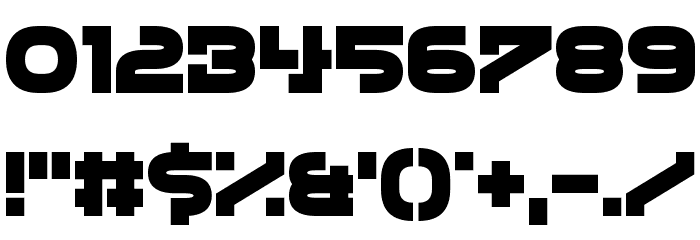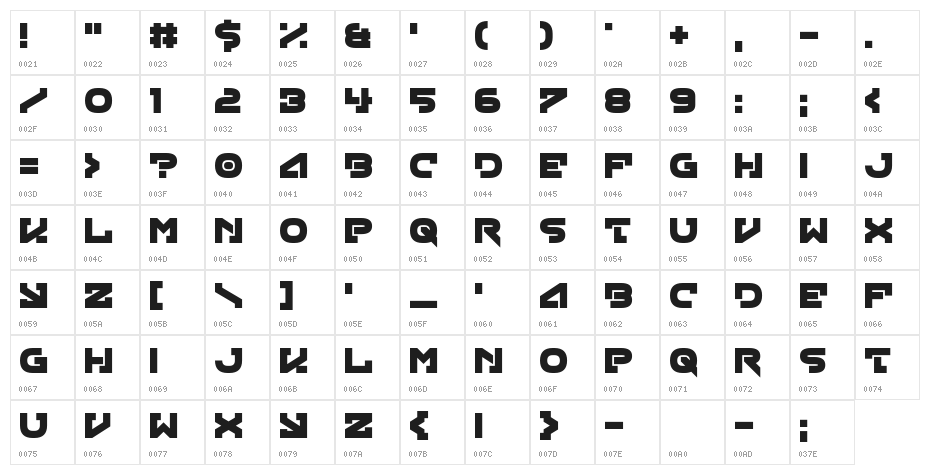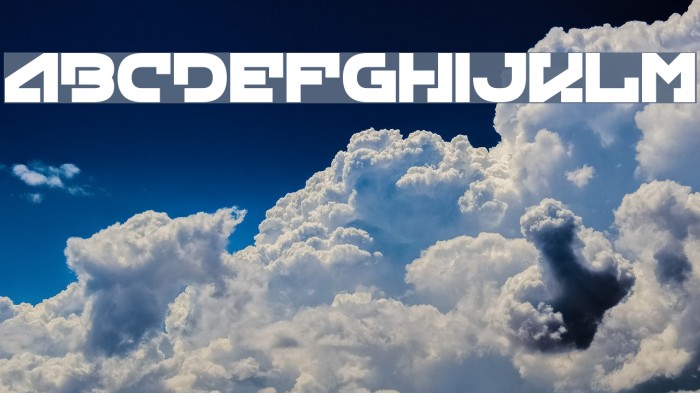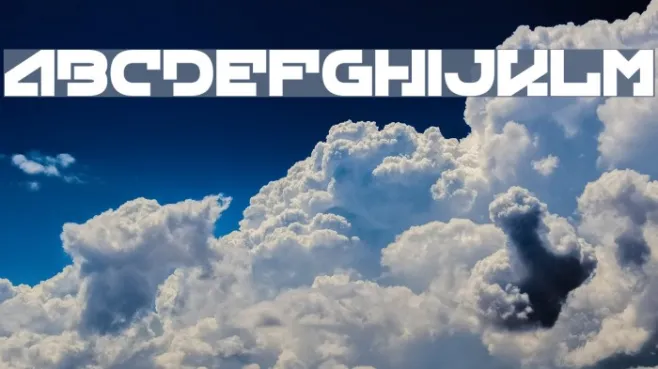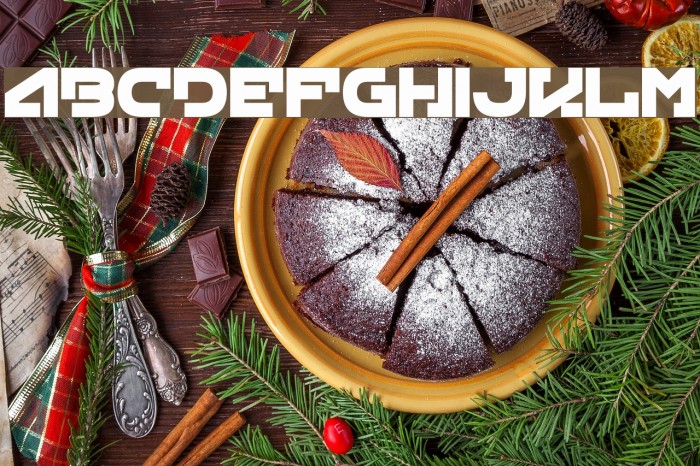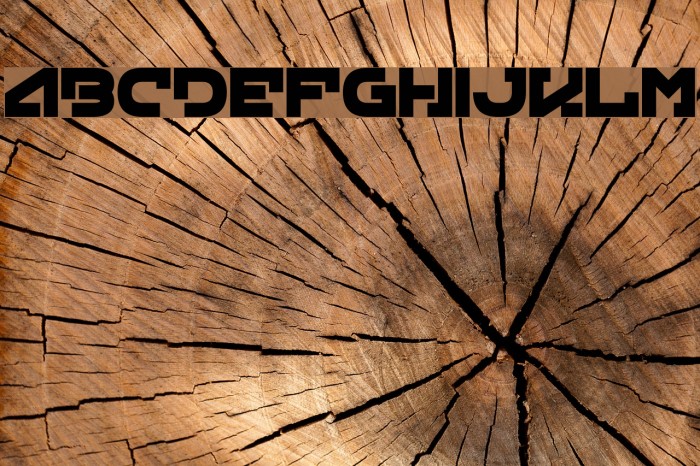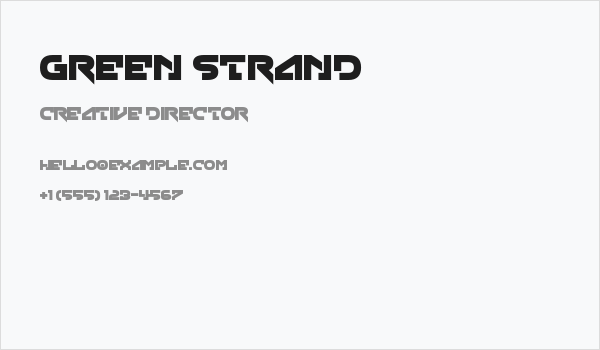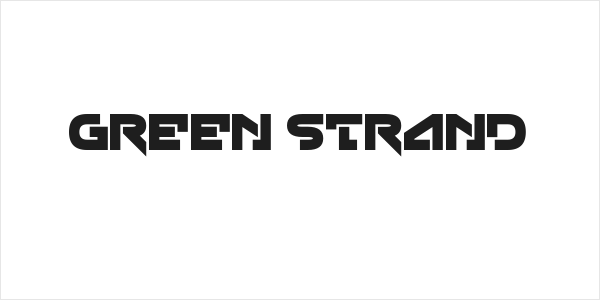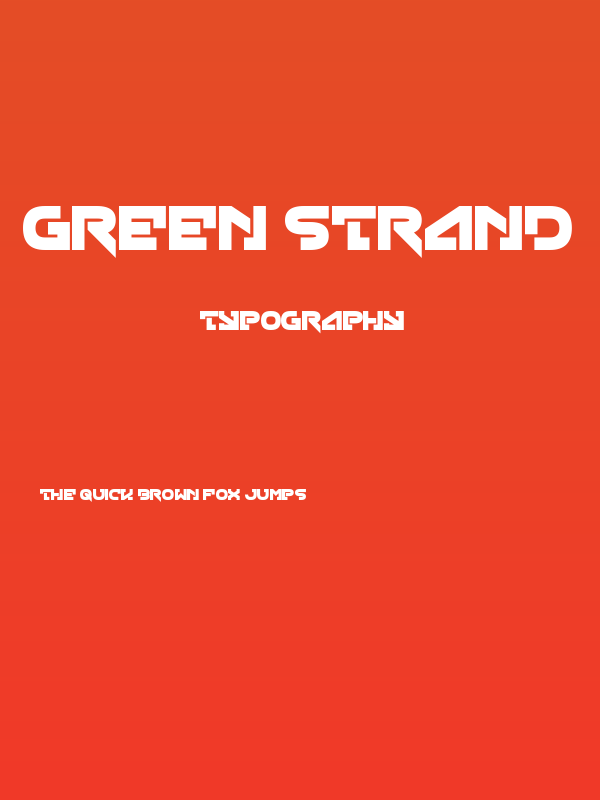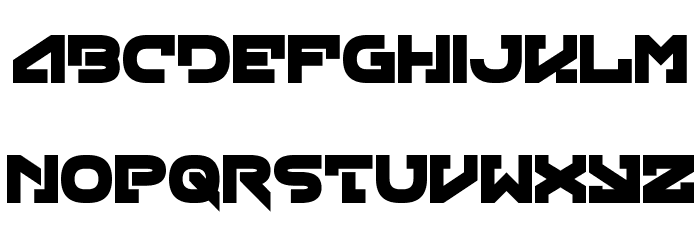
Green Strand Font
Green Strand Description
This font features a bold, geometric design with sharp angles and a futuristic aesthetic. The characters are constructed with a strong emphasis on horizontal and vertical lines, creating a sense of stability and modernity. The uppercase letters are particularly striking, with unique cuts and angles that give each character a distinctive look. The numbers and special characters maintain this bold, angular style, ensuring consistency across all glyphs. This font's design is both eye-catching and versatile, making it suitable for a variety of creative applications.
| Proposed Projects | Ideal for use in technology branding, sci-fi themed projects, video game titles, and modern advertising campaigns. |